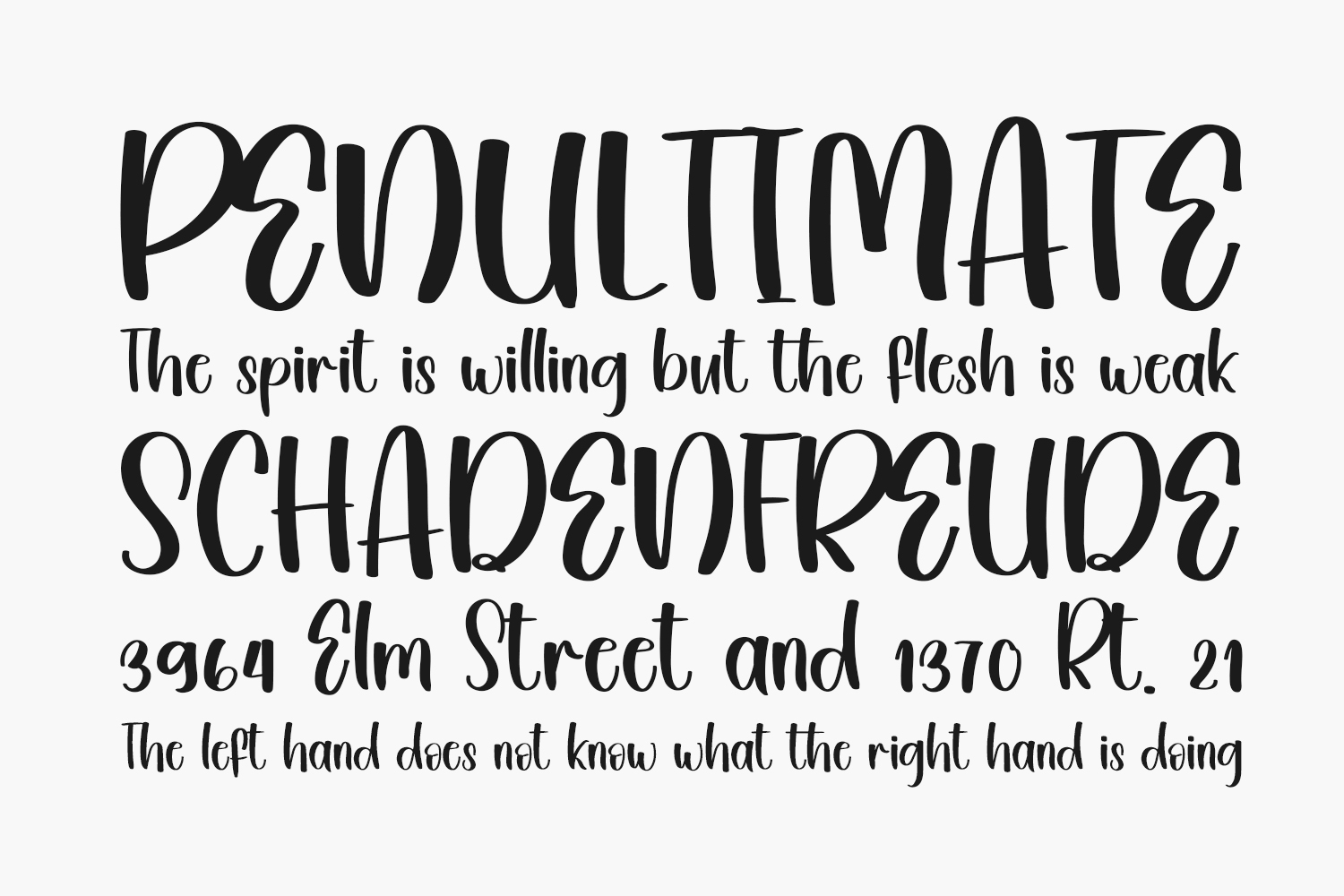
Hello Sunshine Free Font is a sunny burst of creativity and personality. Its beautiful, handwritten script is both trendy and timeless, making it an ideal choice for any design project in need of a touch of warmth and charm. Whether you’re creating eye-catching social media graphics, unique event invitations, or quirky product packaging, the Hello Sunshine font is sure to bring a touch of happiness to your design.
Designed by Inermedia Studio